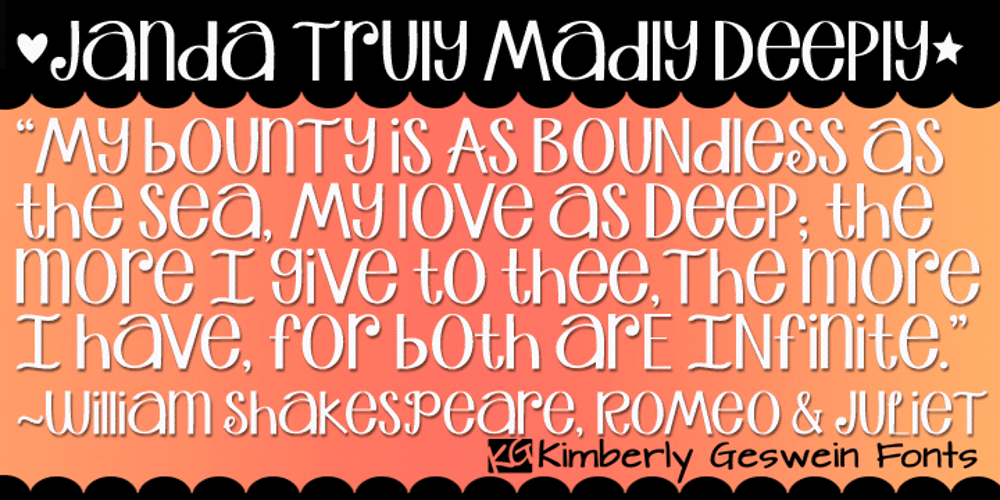
Janda Truly Madly Deeply Font Family was designed by Kimberly Geswein and published by Kimberly Geswein. Janda Truly Madly Deeply contains 1 styles and family package options. This unicase font features little curls and swirls to make it a little more flavorful. It is fun, optimistic, and upbeat in personality.